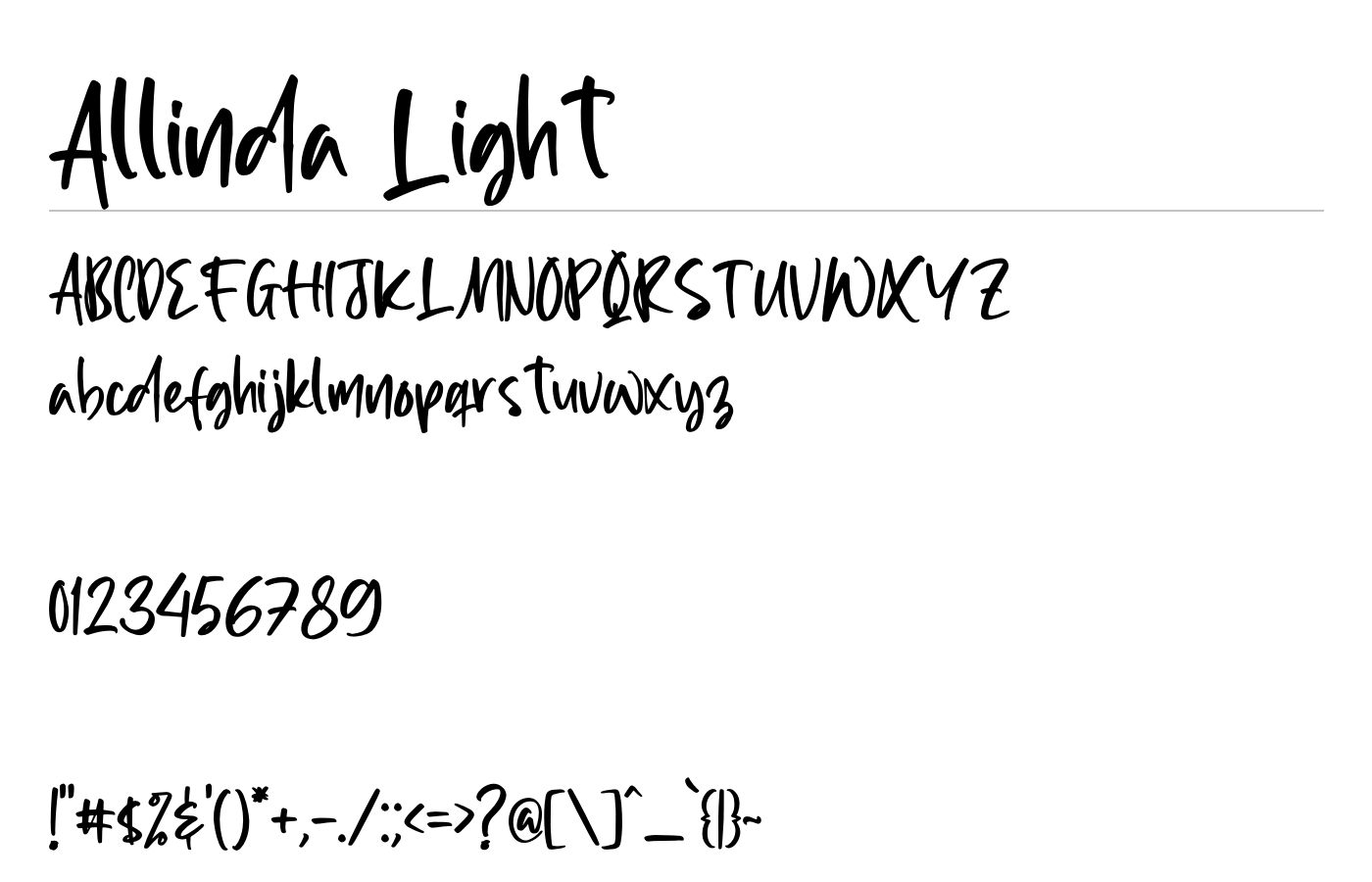
Allinda Light is a playful and casual handwritten font with a light weight and tall, narrow letterforms that create an energetic and friendly feel. Its irregular strokes and lively shapes make it ideal for informal branding, creative projects, and designs that want to convey a personal, approachable touch. This font works best in headlines, logos, and any context where a fun, human touch is desired.
Allinda Light Font
About Allinda Light Font